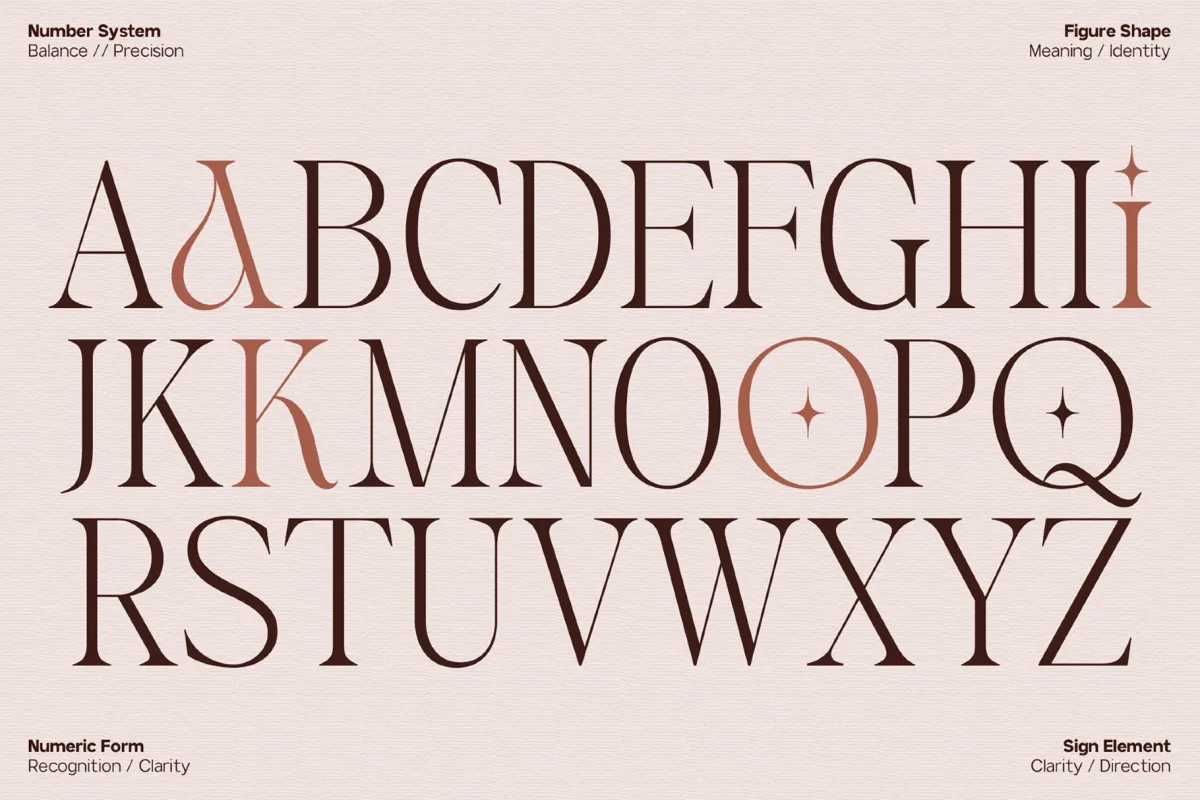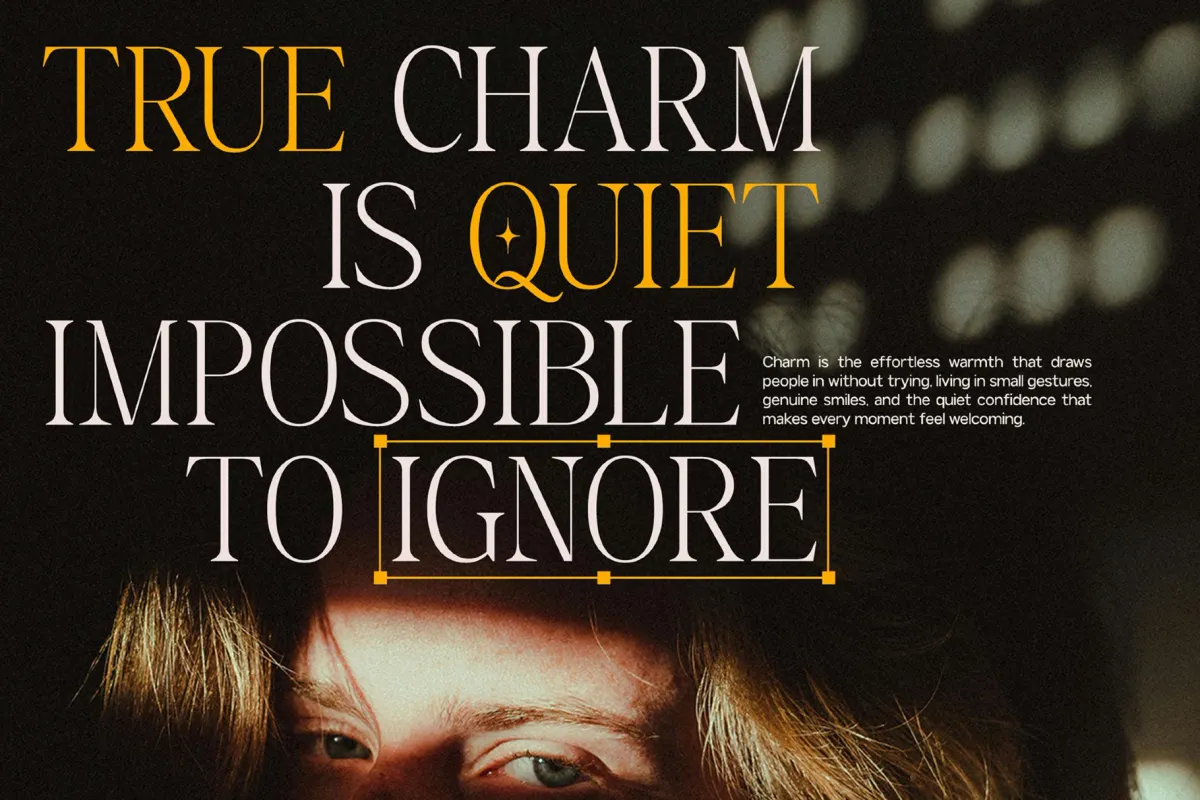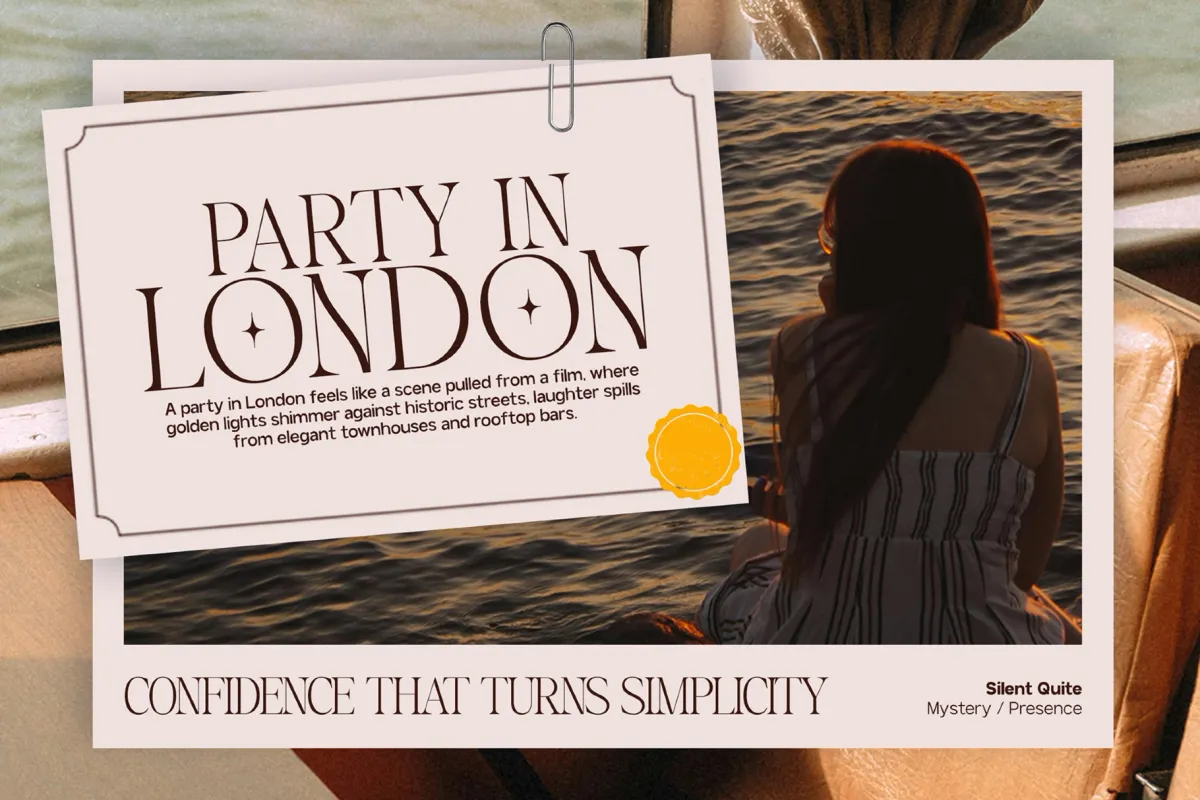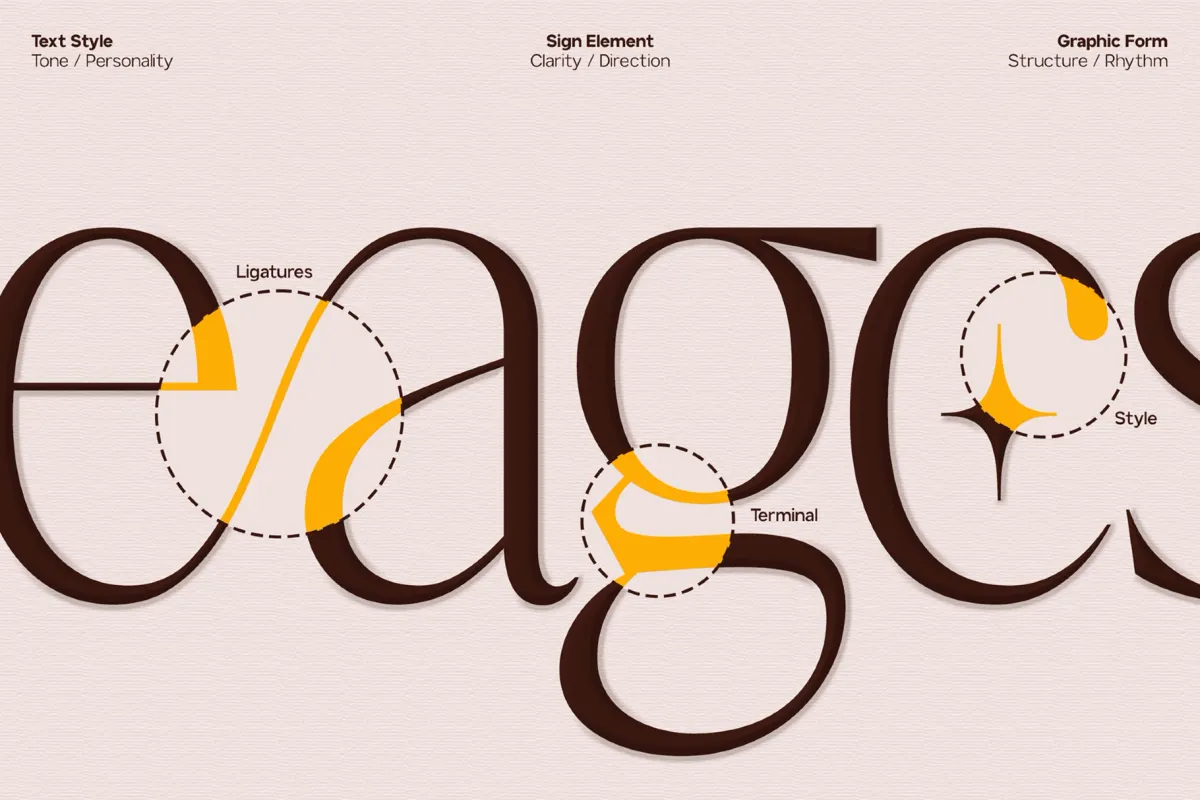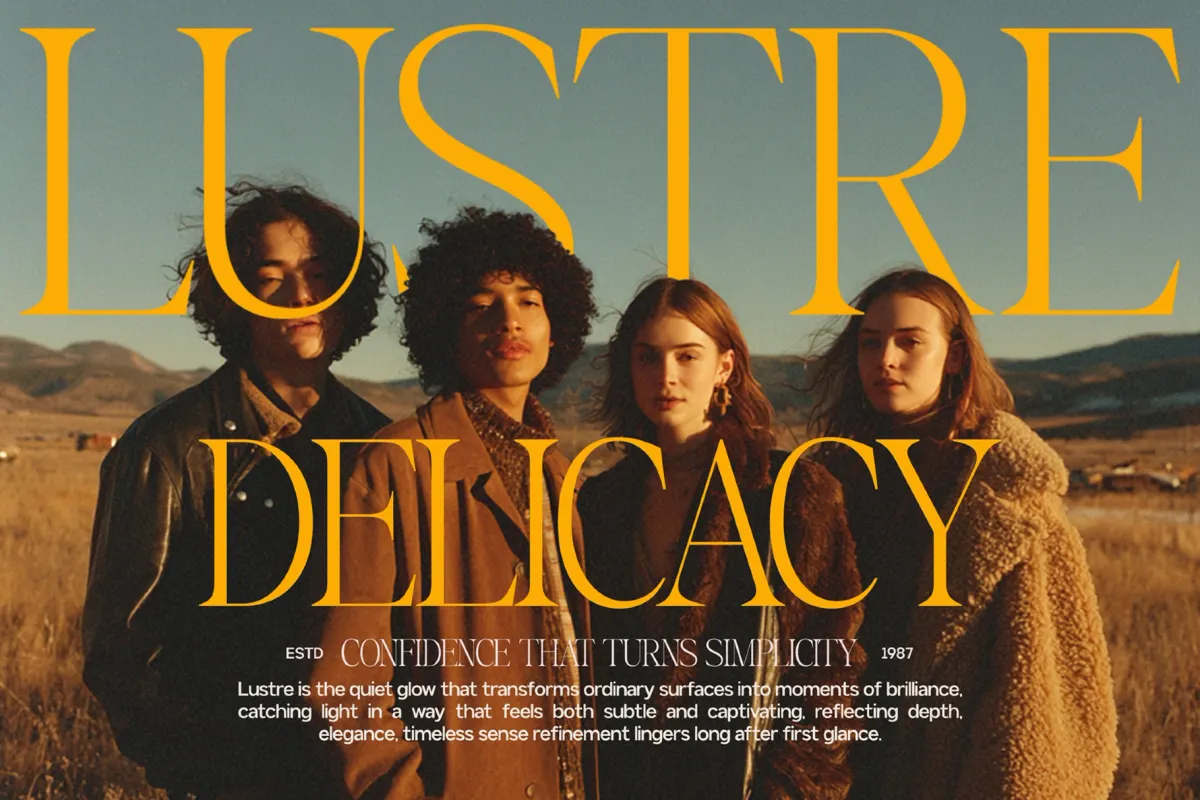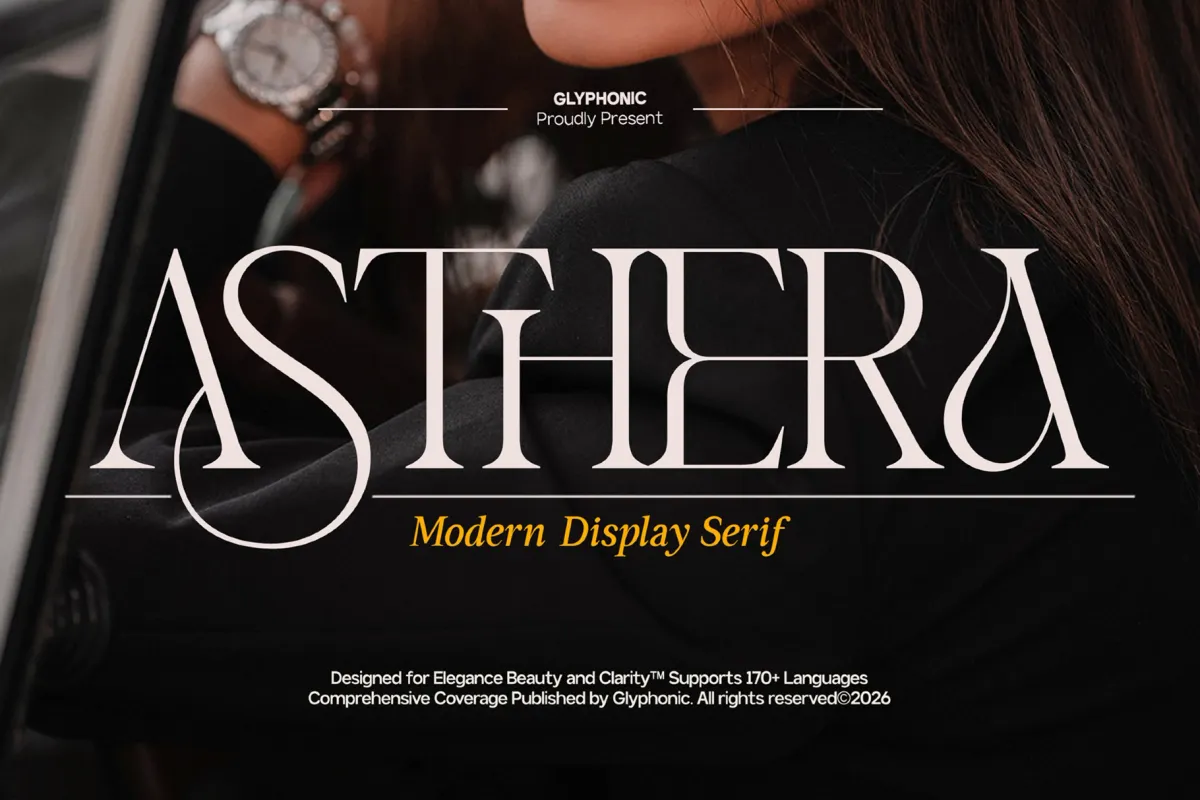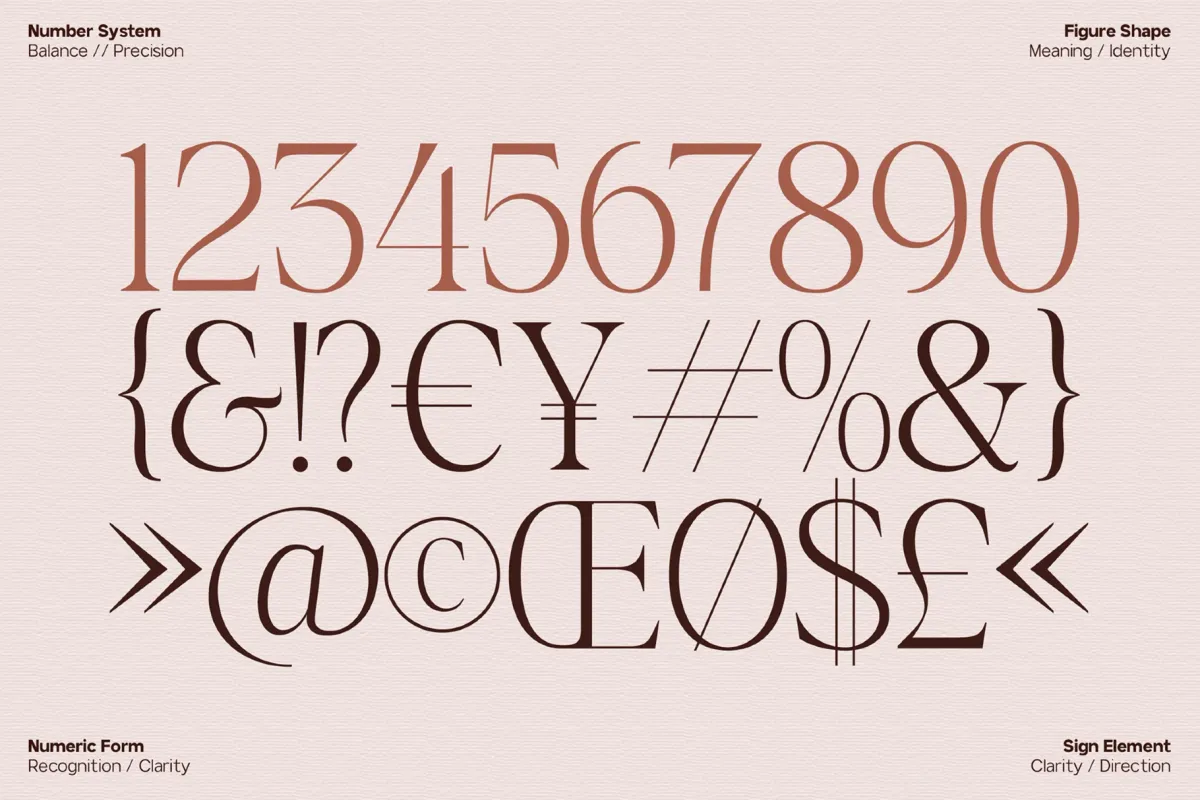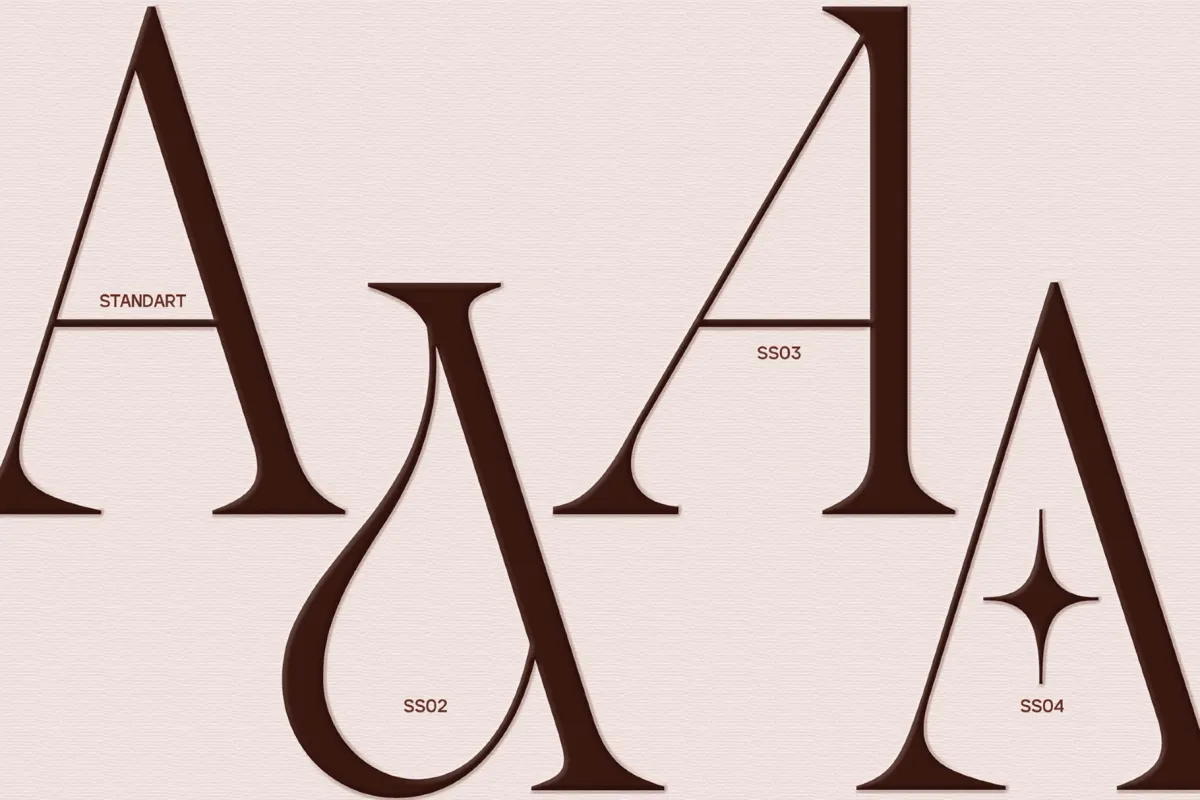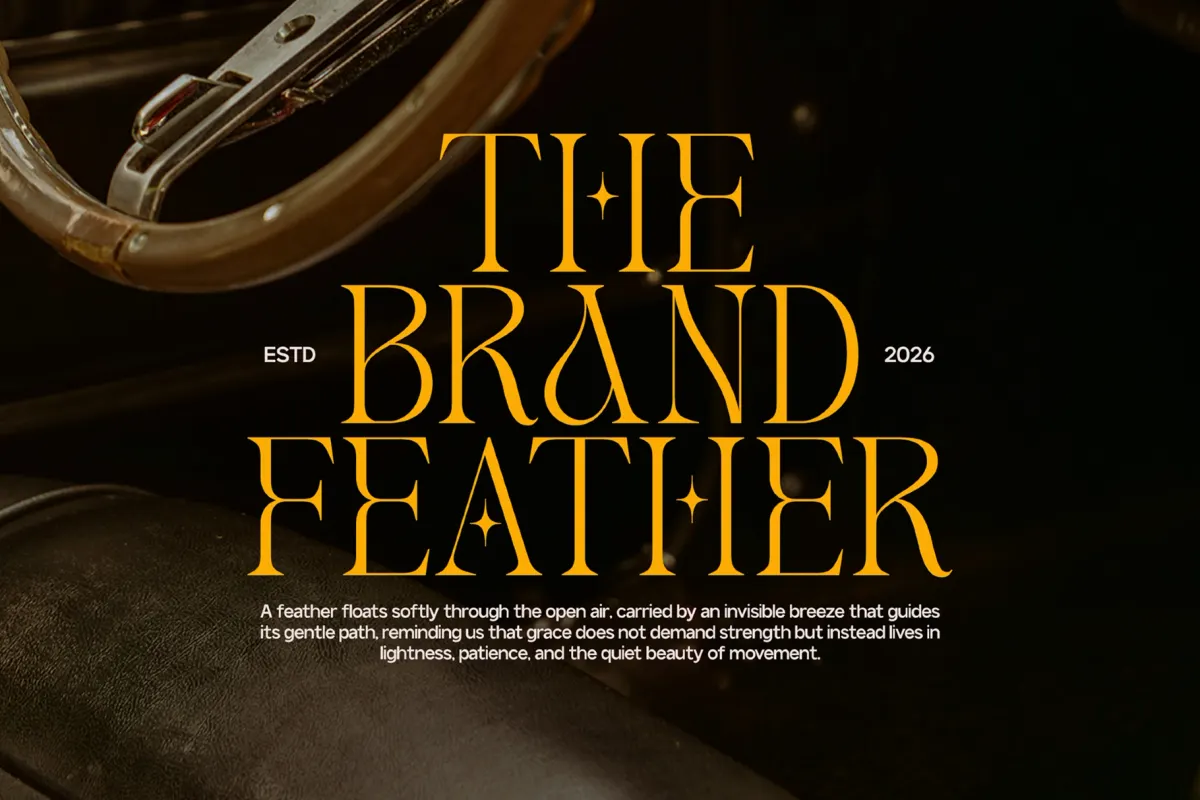
Asthera is an elegant display serif with high-contrast, tapering strokes and sculpted serifs built for fashion and beauty editorial work. Stylistic alternates reshape the A — a looping tail, a slanted leg, a straight-cut version — while a sparkle ornament sits inside the O and over the dotted i for a jewelry-like finishing touch.
Use it for fashion and beauty wordmarks, editorial headlines, magazine covers, luxury packaging, and logo lockups.
- uppercase & lowercase;
- numerals, punctuation & symbols, plus fractions and ordinals;
- stylistic alternates;
- standard and discretionary ligatures;